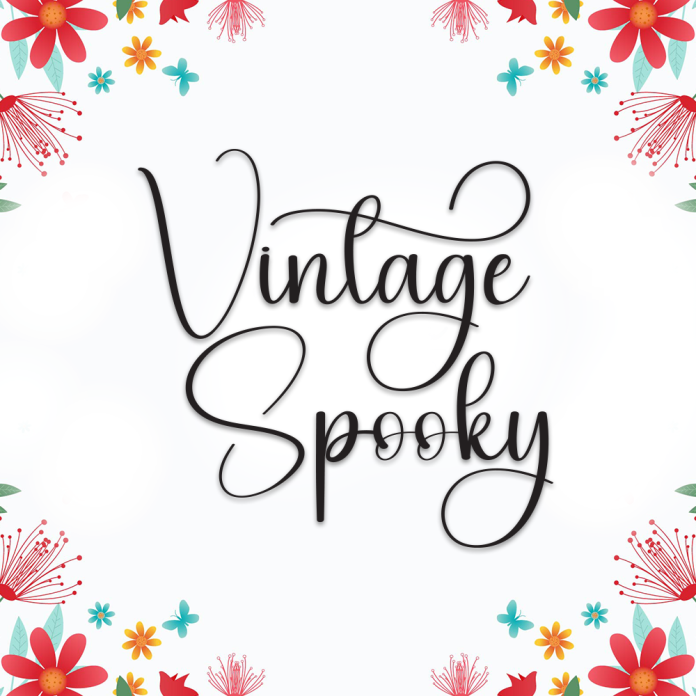
Vintage Spooky is a charmingly eerie handwriting font that blends retro flair with a touch of mystery. Its uneven strokes and playful curves create a nostalgic yet spooky vibe, perfect for seasonal and themed designs.
Unique vintage-inspired handwritten style with a spooky twist
Ideal for Halloween posters, party invitations, and decorative titles
Quirky yet readable letterforms
Bring a dash of vintage mystery to your creative projects with Vintage Spooky.